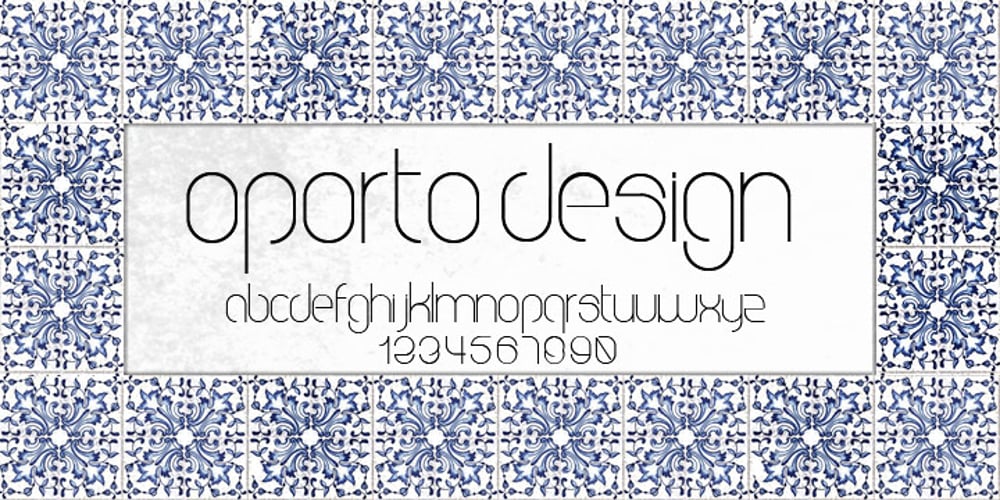
Oporto Font Family was designed by Alexandre Venancio and published by Oporto Design. Oporto contains 1 styles and family package options. Oporto is a modern font which blends the cosmopolitan and bohemian mood from Oporto city in a elegant and timeless design.